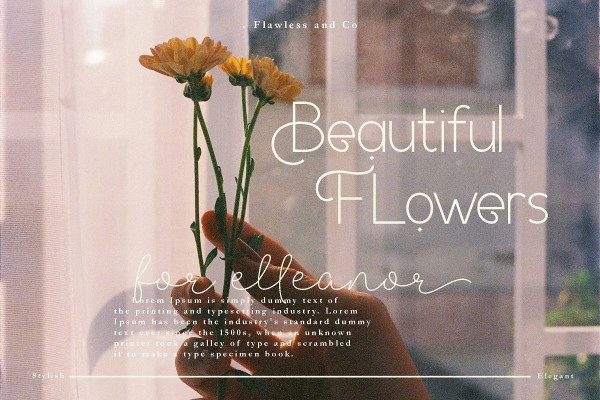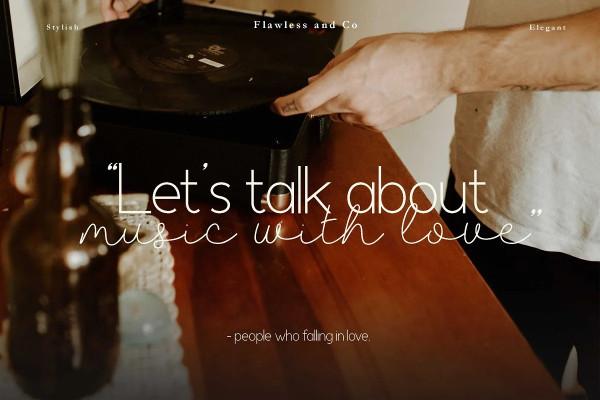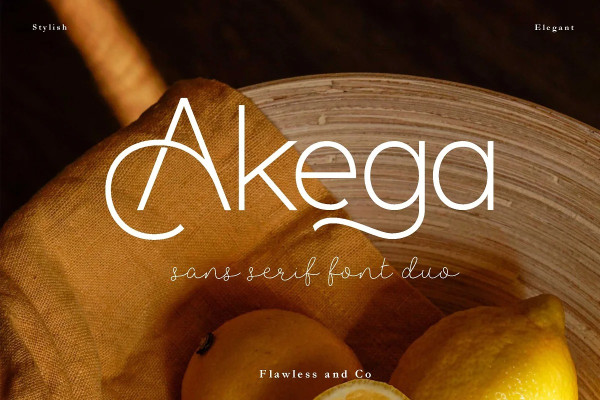
Akega Font
Akega Font Duo – Sans Serif font, script font, Modern Font with Elegant Style is perfect for branding, logos, invitation, master heads, and more.